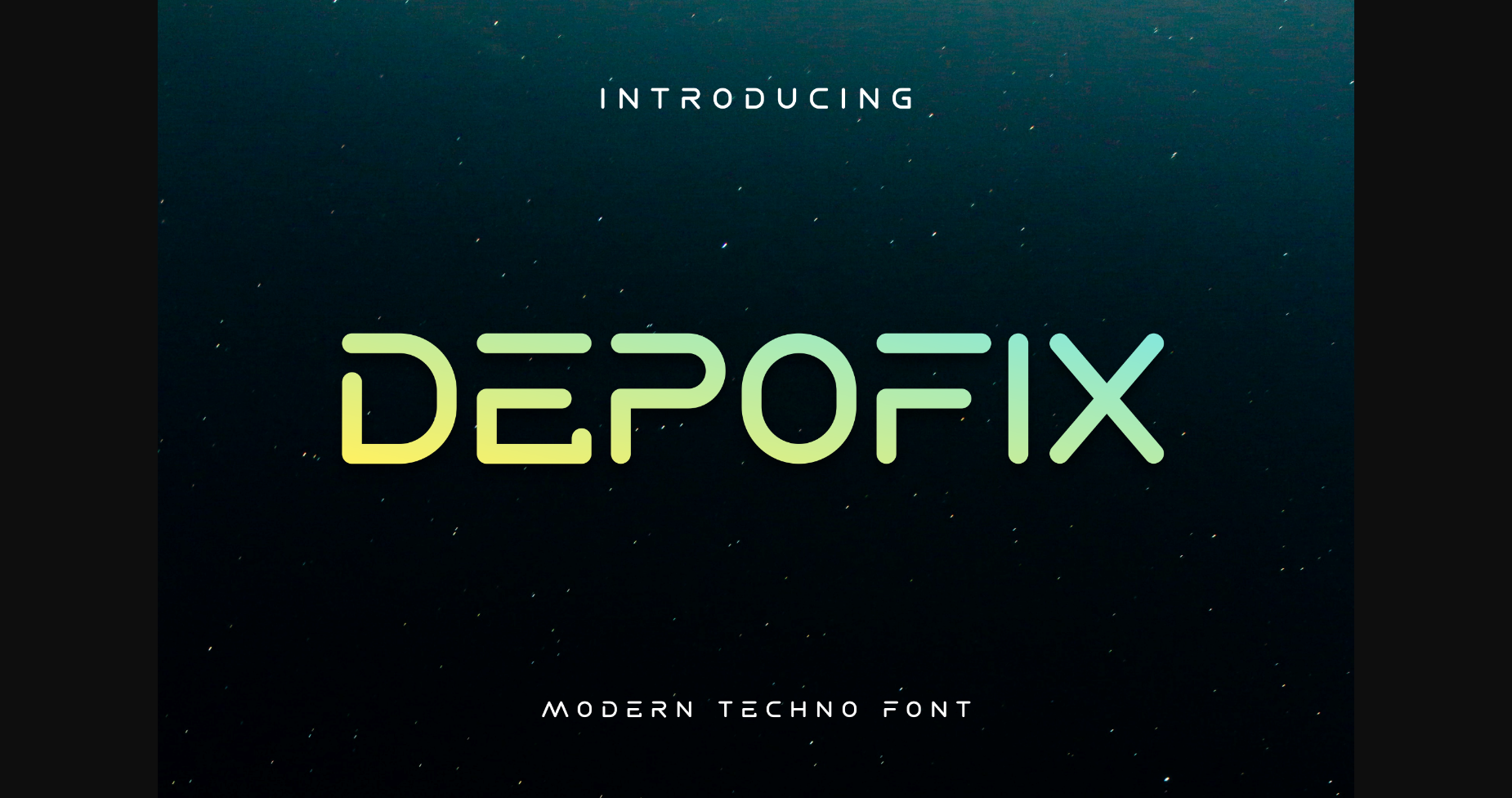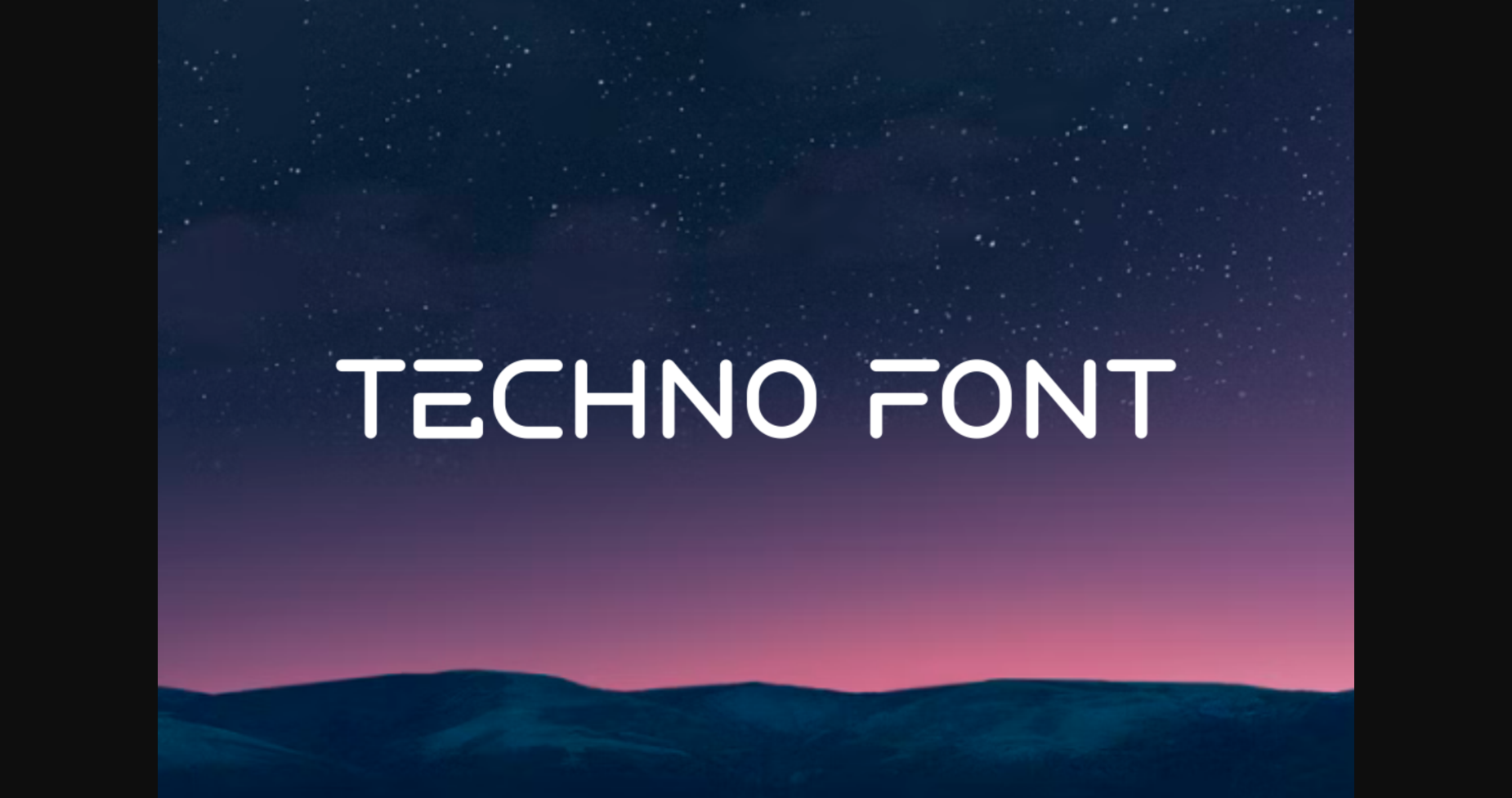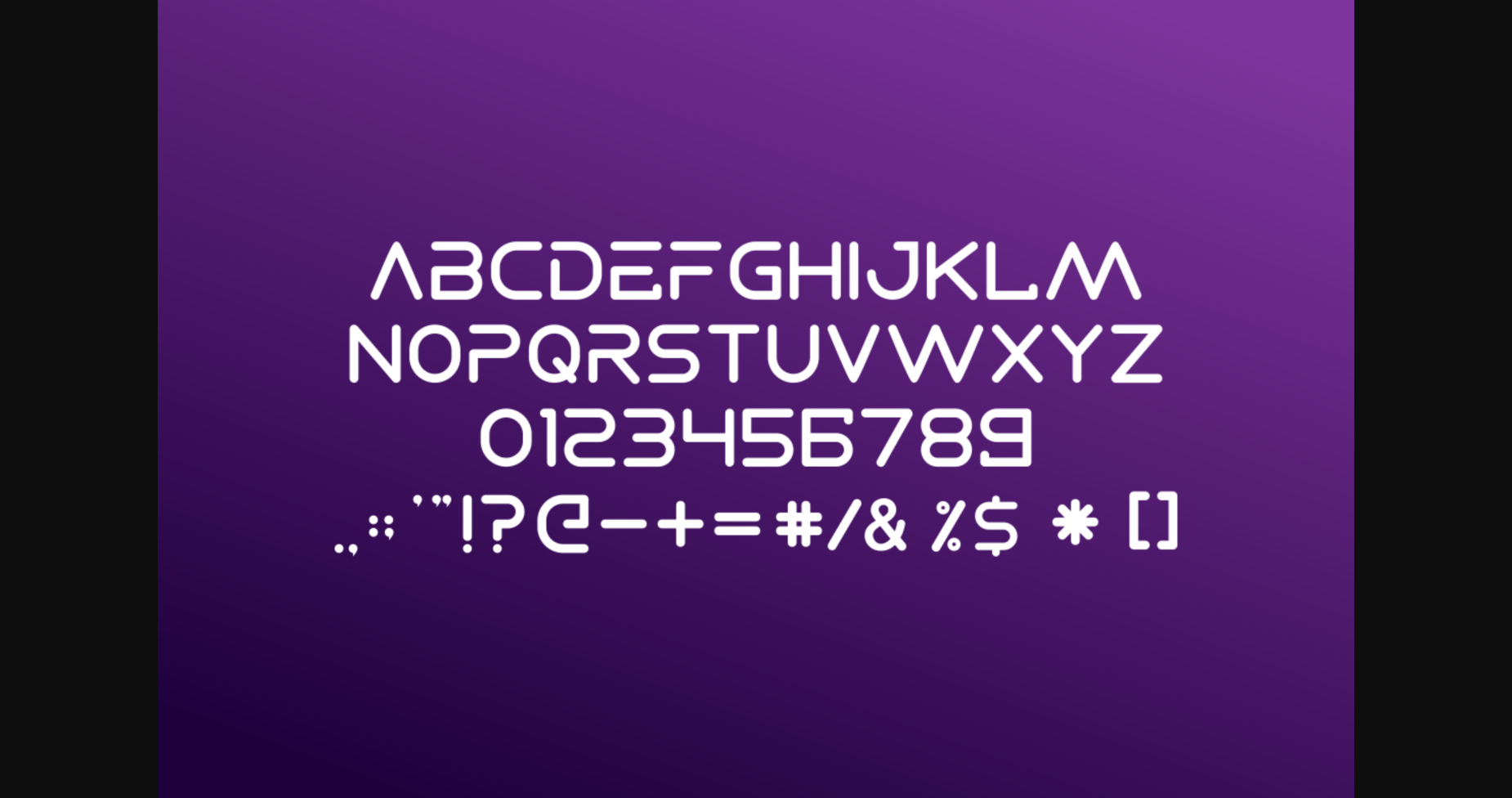
Depofix Font
About Depofix Font
Depofix is a futuristic font, a font inspired by the visual of technology that we can find in logos, sci-fi movies, games, and the present gadgets. Designed with minimalist style and unique letterforms, a perfect choice to use on logos, labels, posters, packaging, books, movies, presentations, games, and much more!